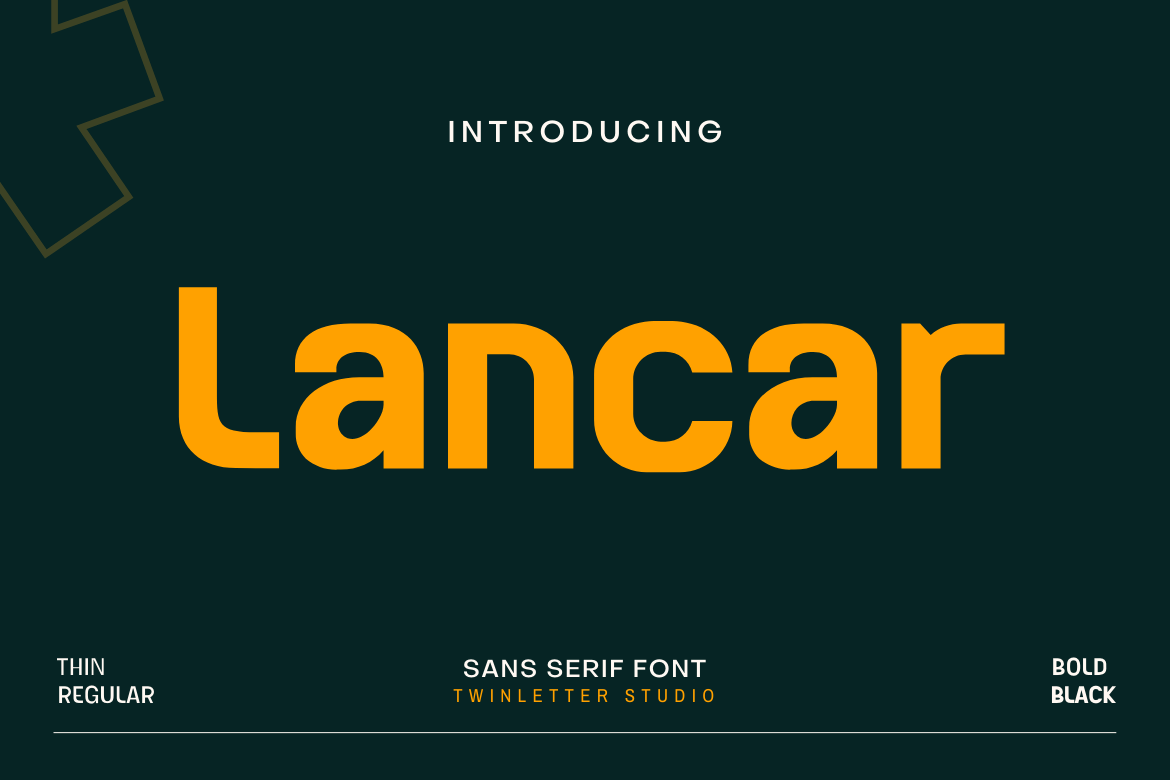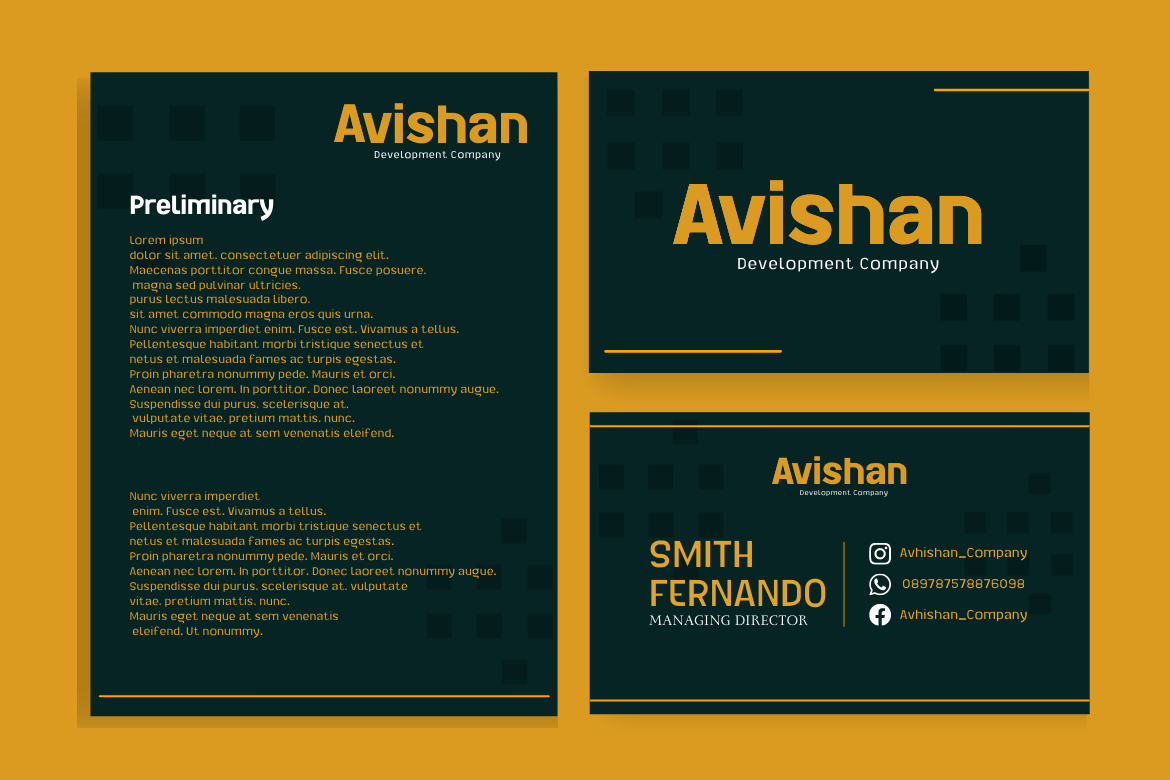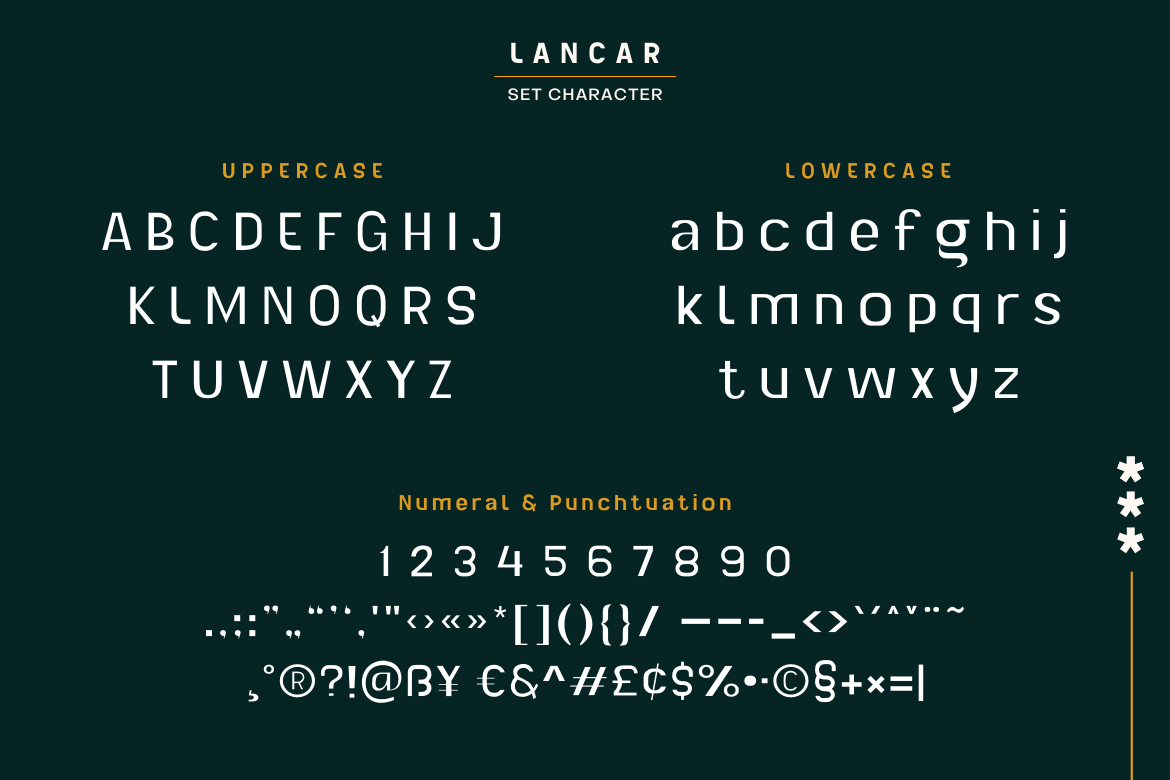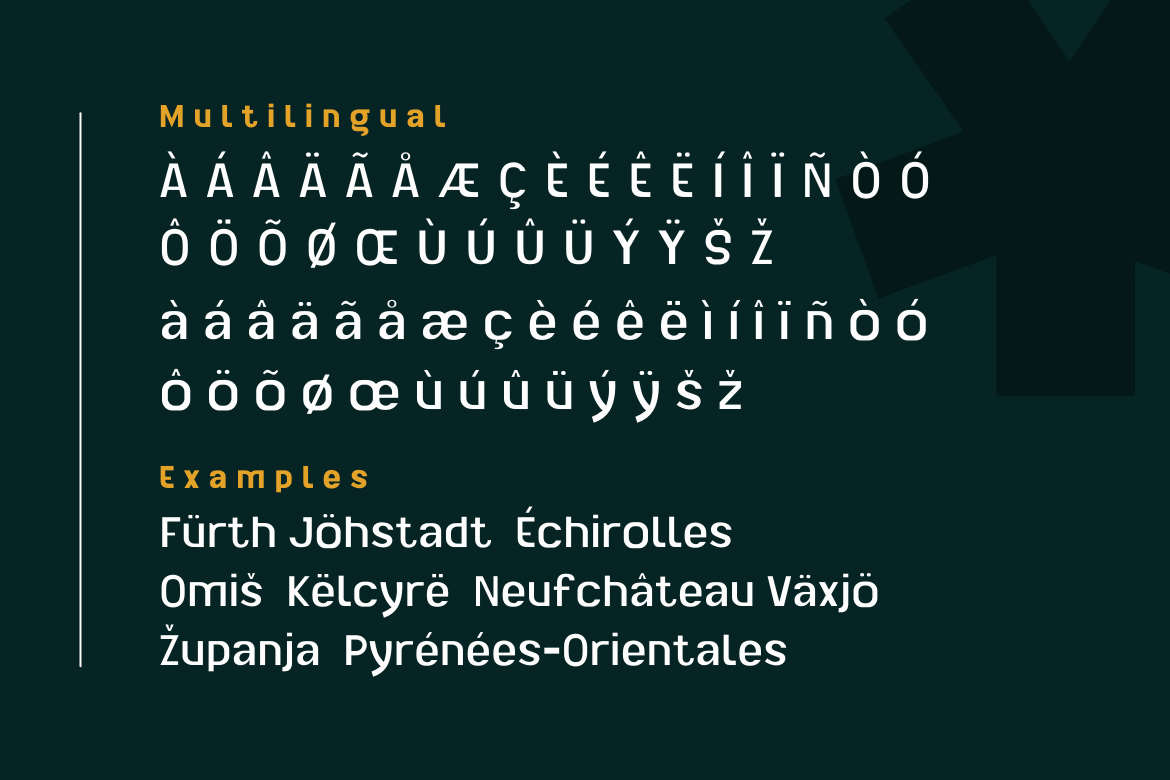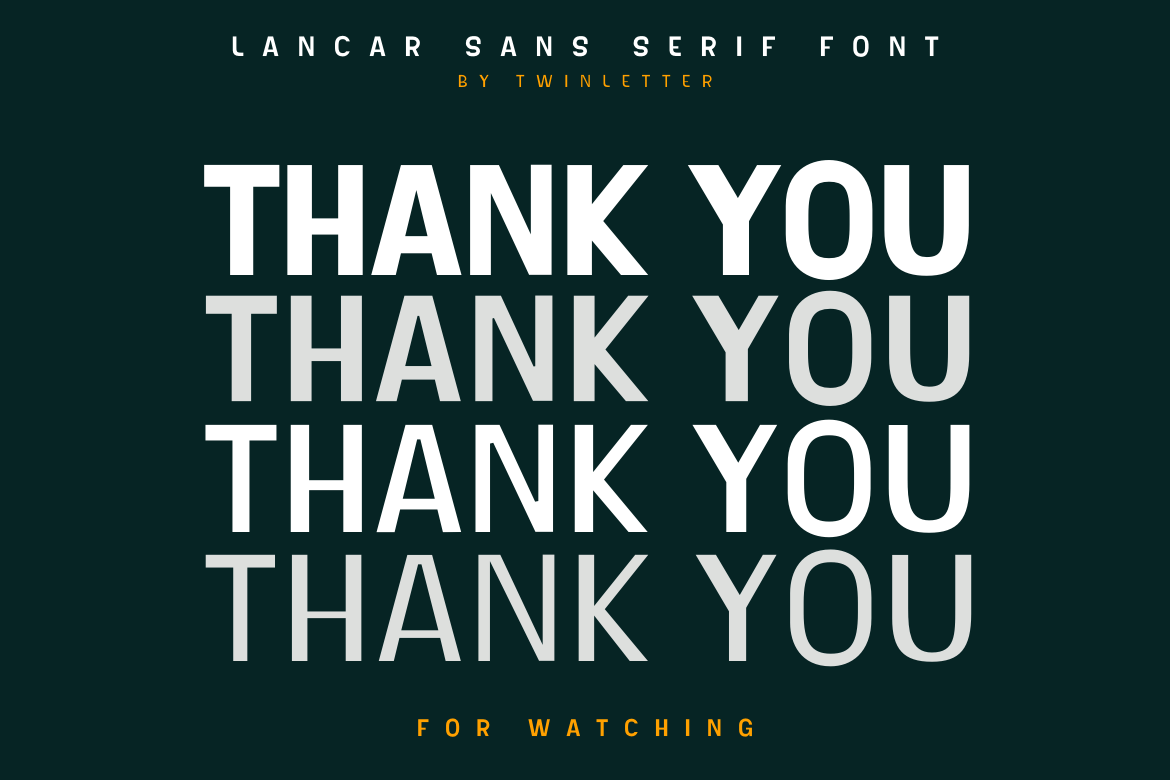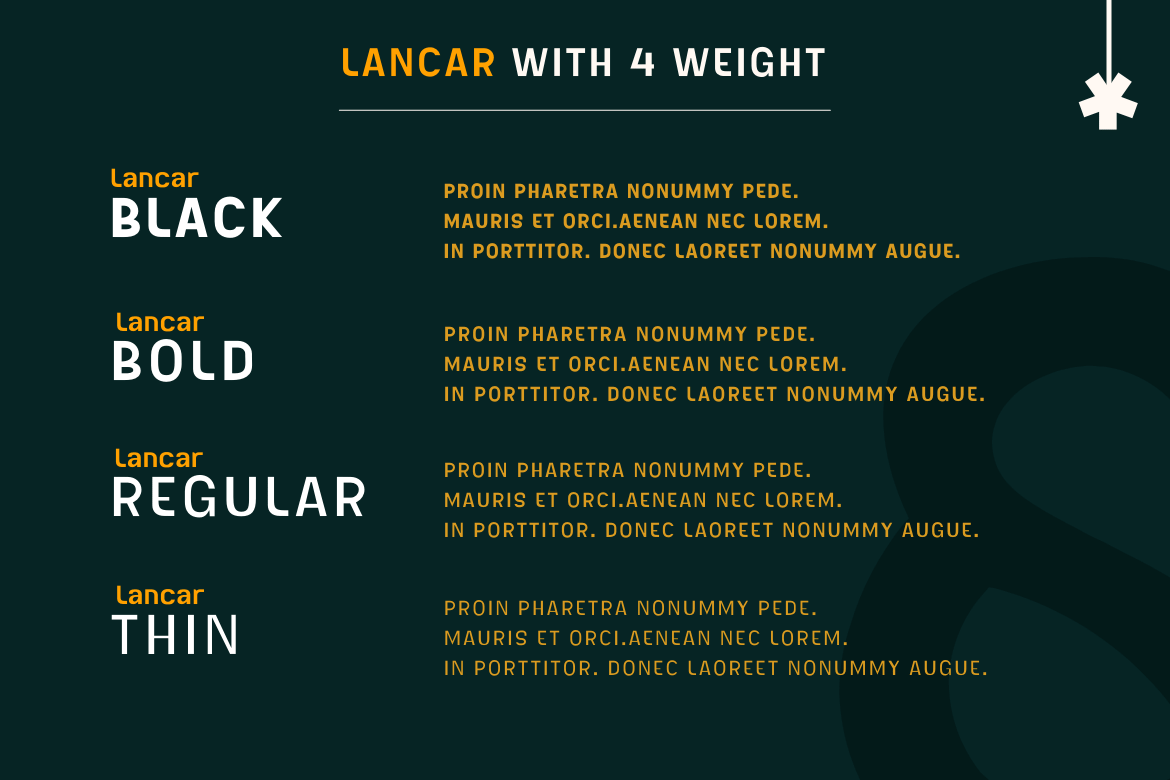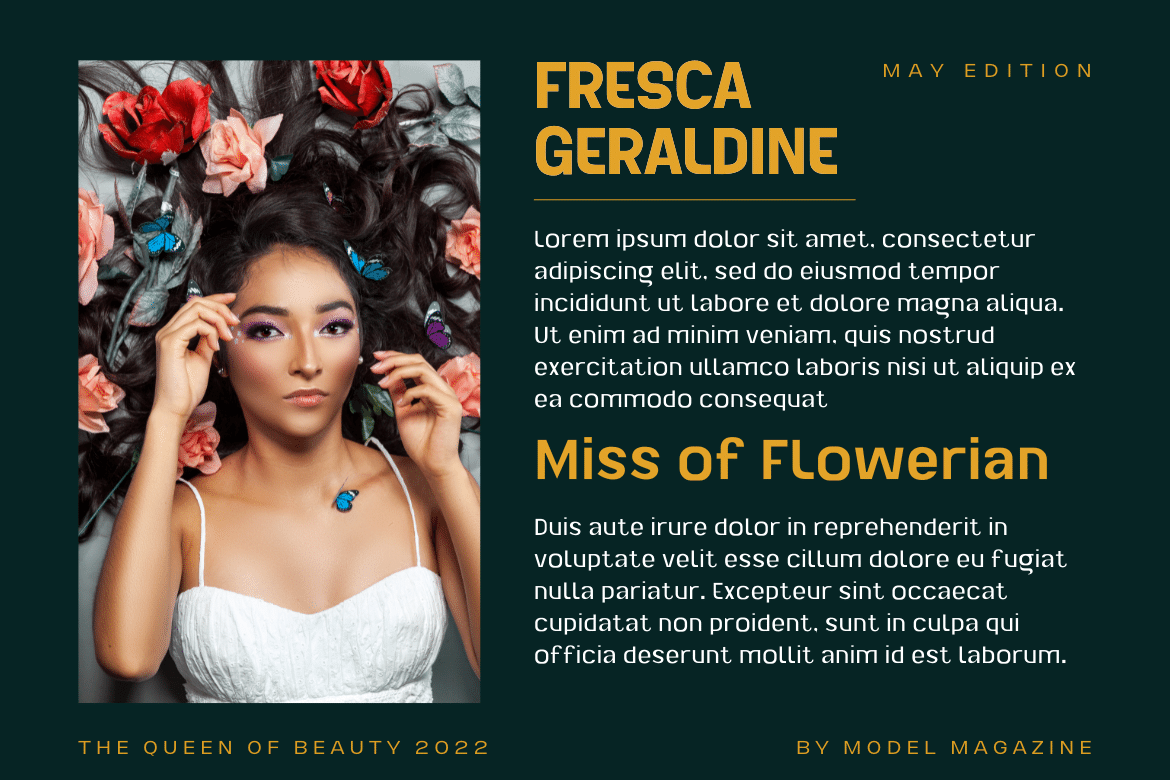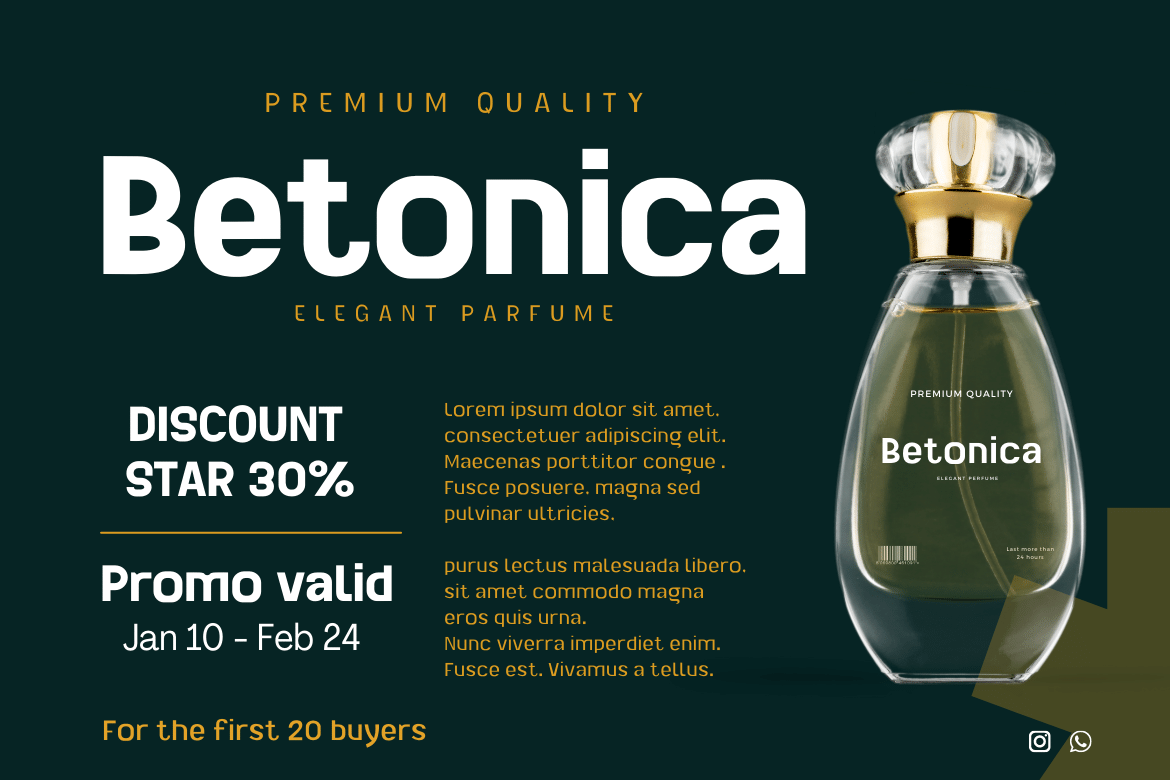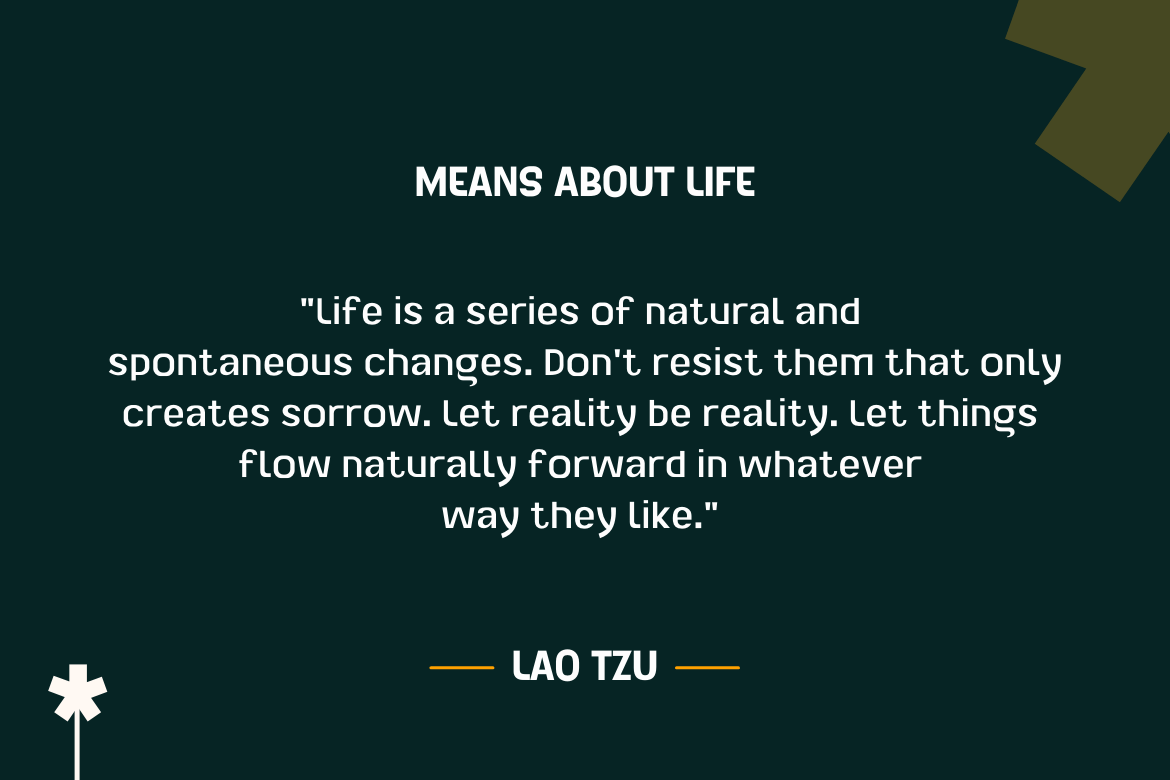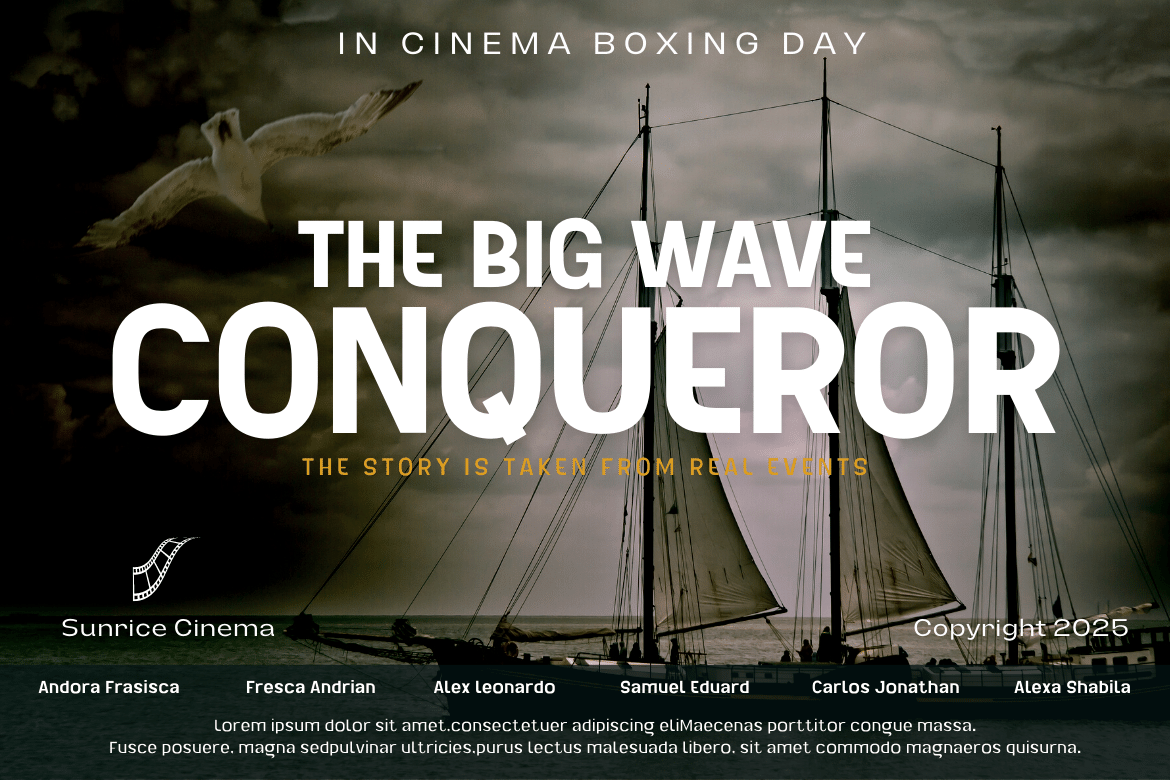
Lancar
Lancar is a sans serif font family with lovely curving forms ideal for headings and text. The curves provide your project an exquisite and harmonious design, great for making your project look gorgeous. This font also comes with four families to help you with your job. With this typeface, you can make your project stand out.
• Fonts include multilingual support for; Afrikaans, Albanian, Croatian, Czech, Danish, Dutch, English, Estonian, Finnish, French, German, Hungarian, Italian, Norwegian, Polish, Portuguese, Slovak, Slovenian, Spanish, Swedish